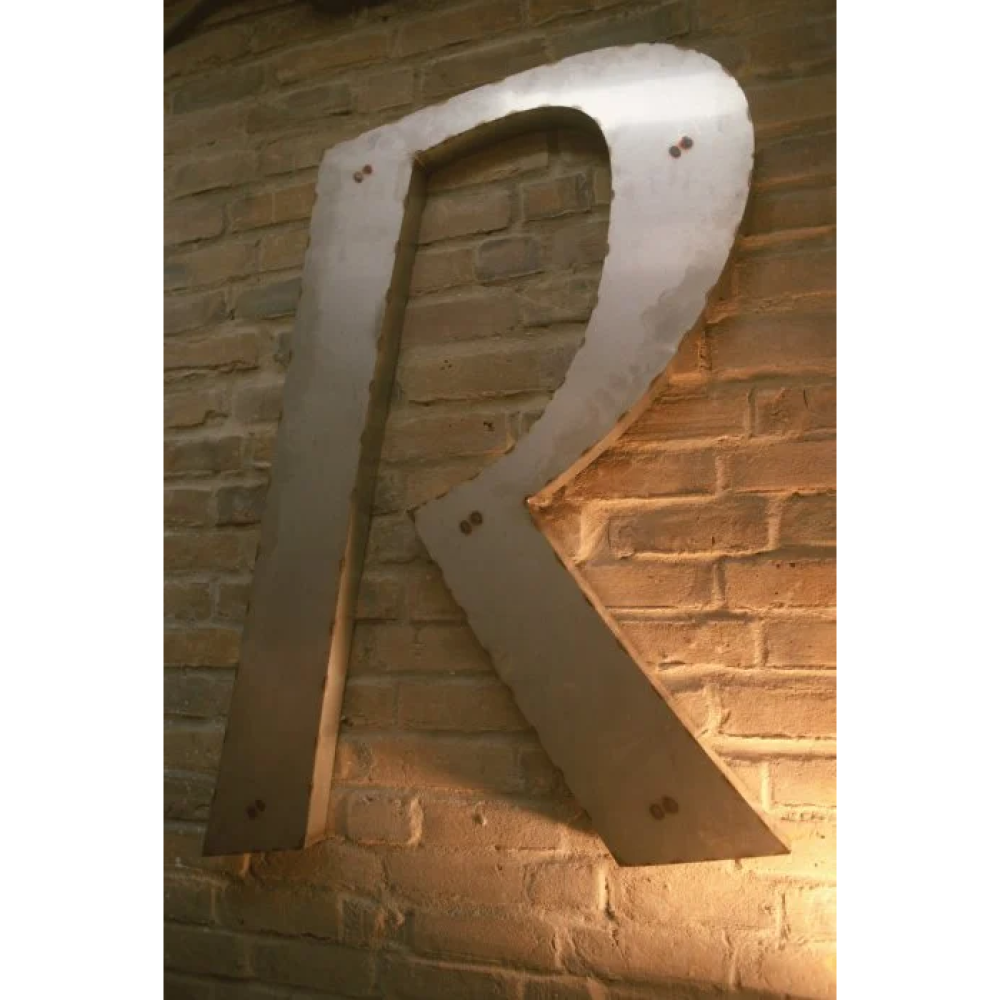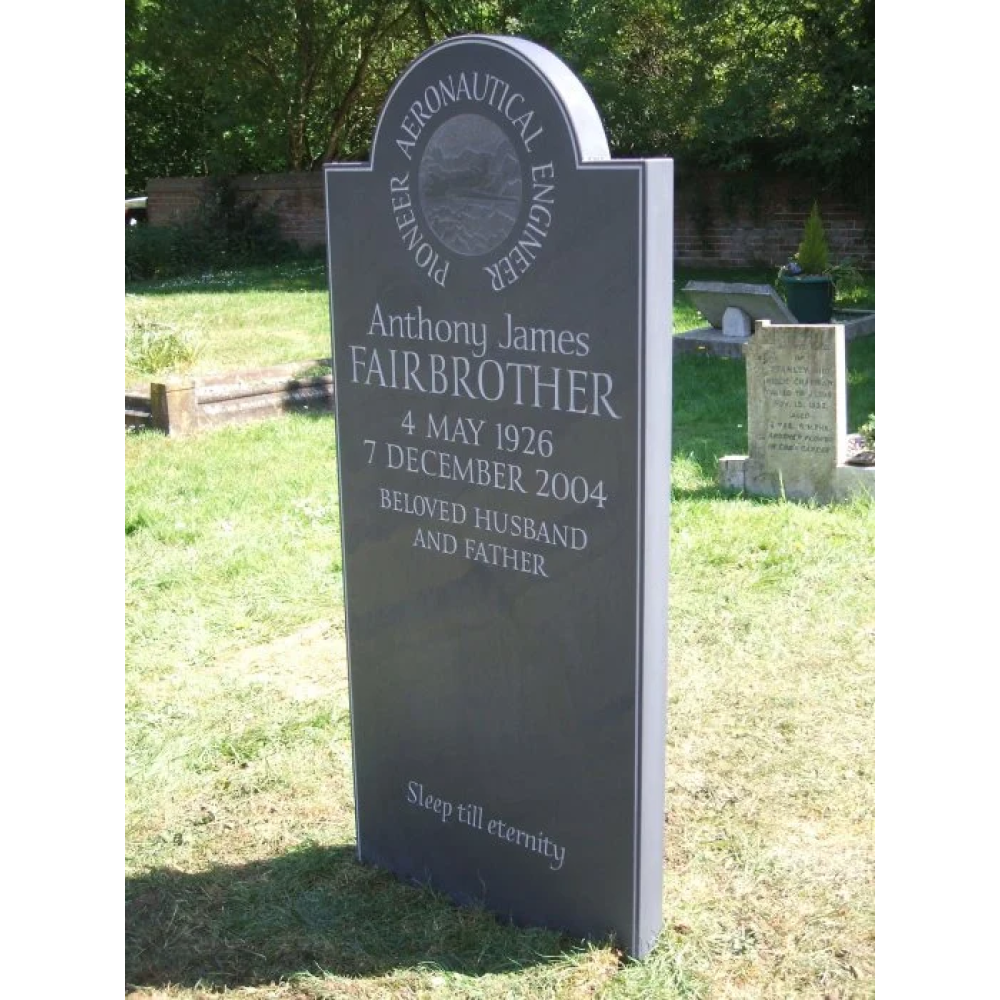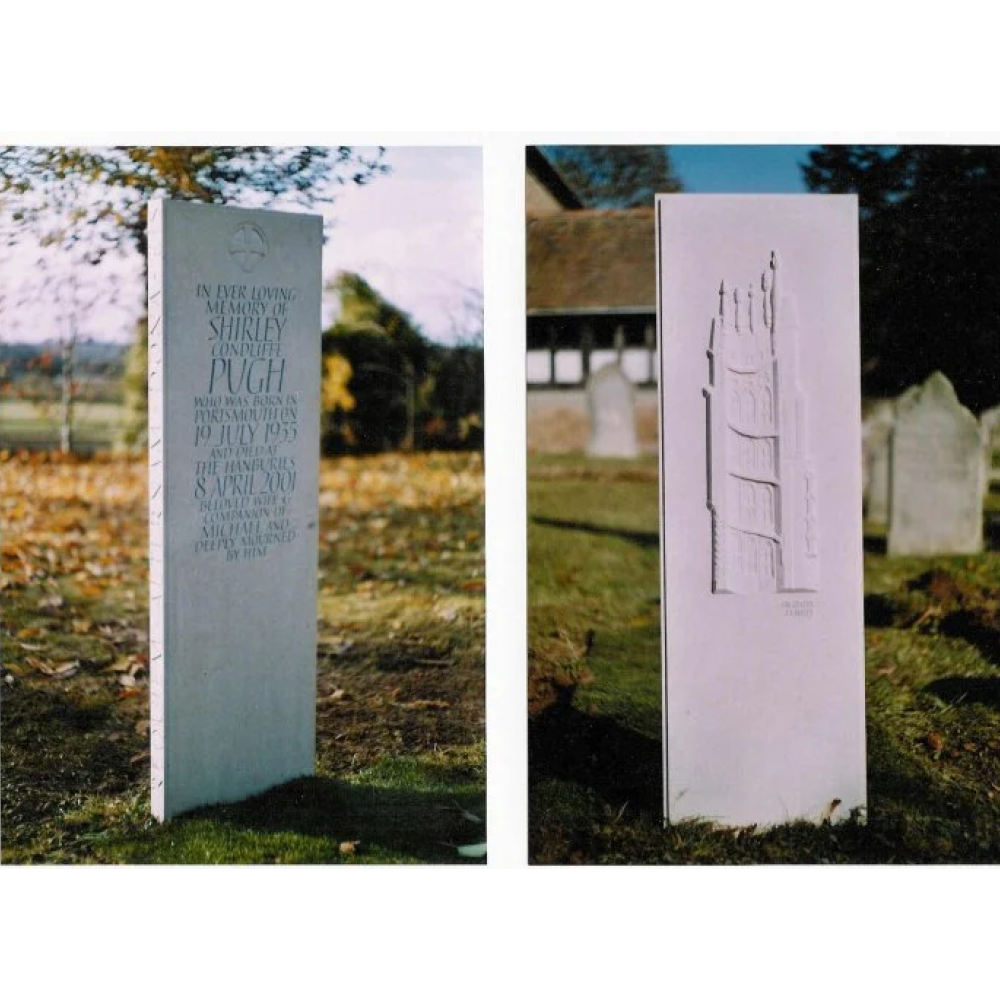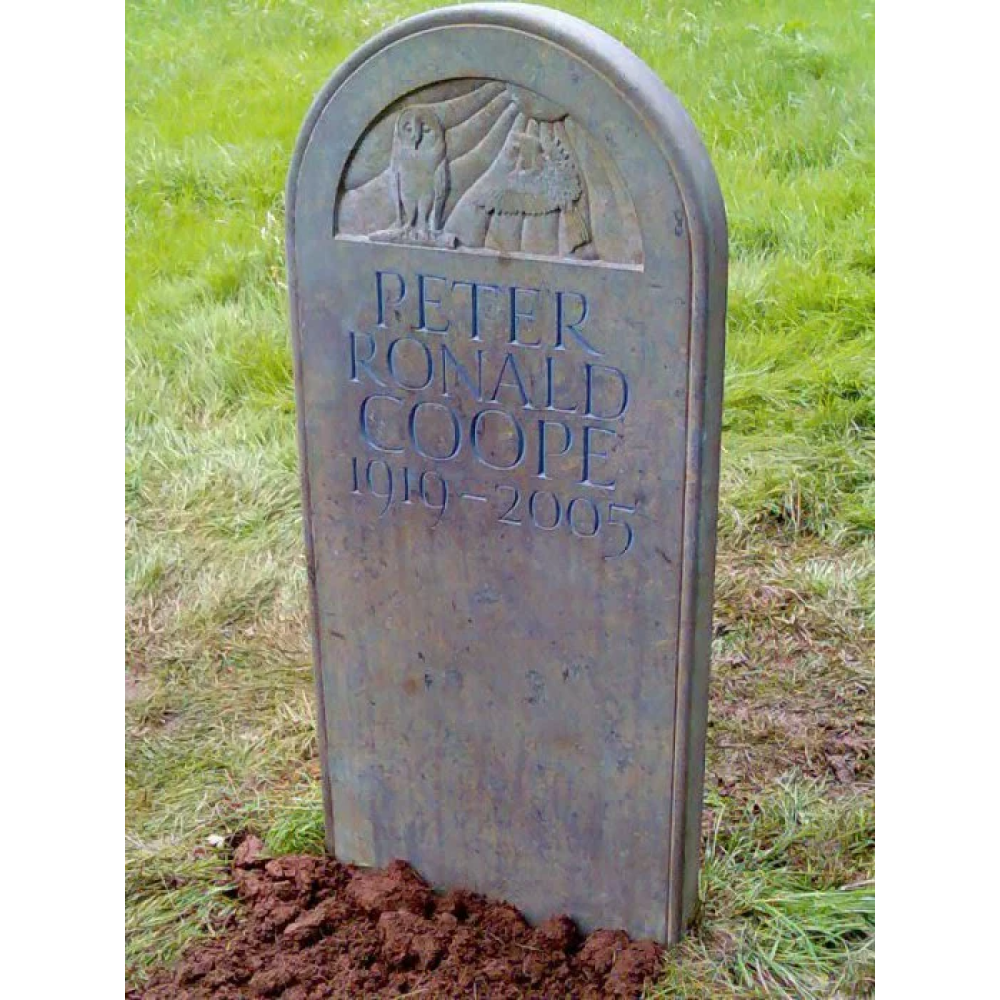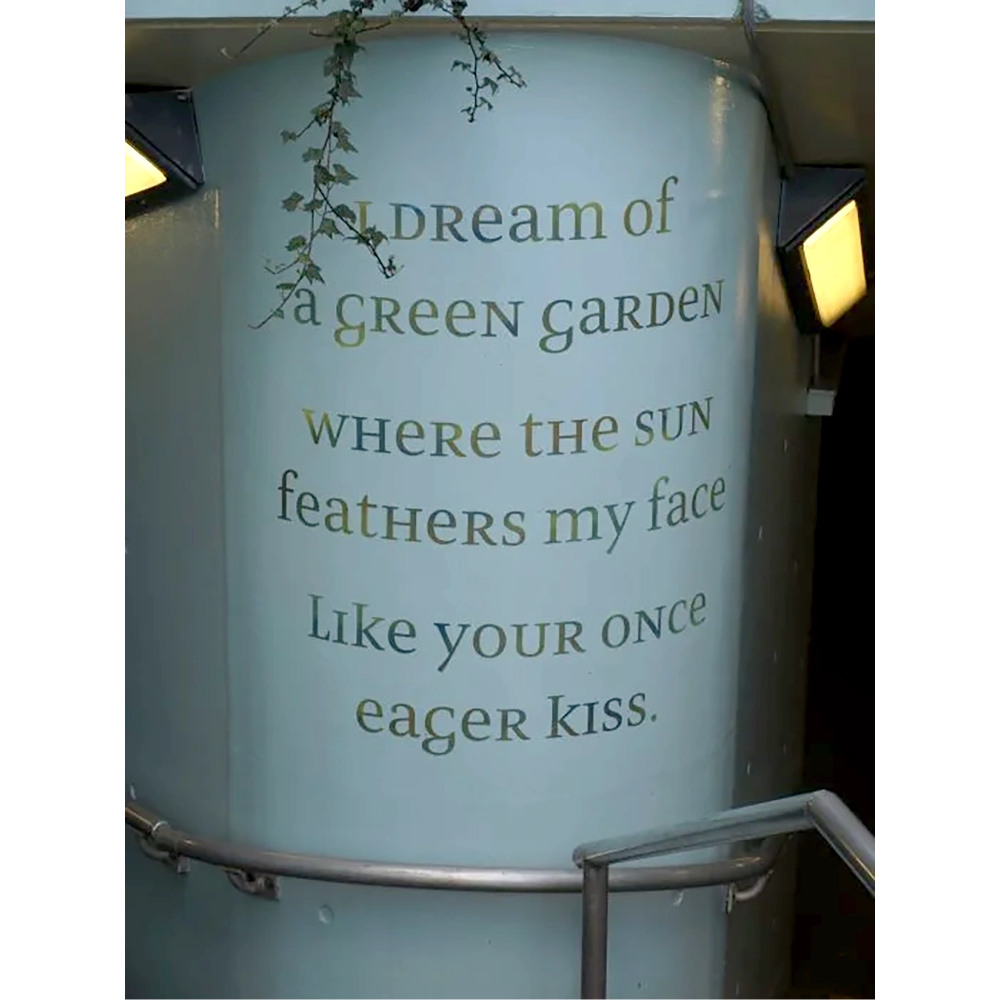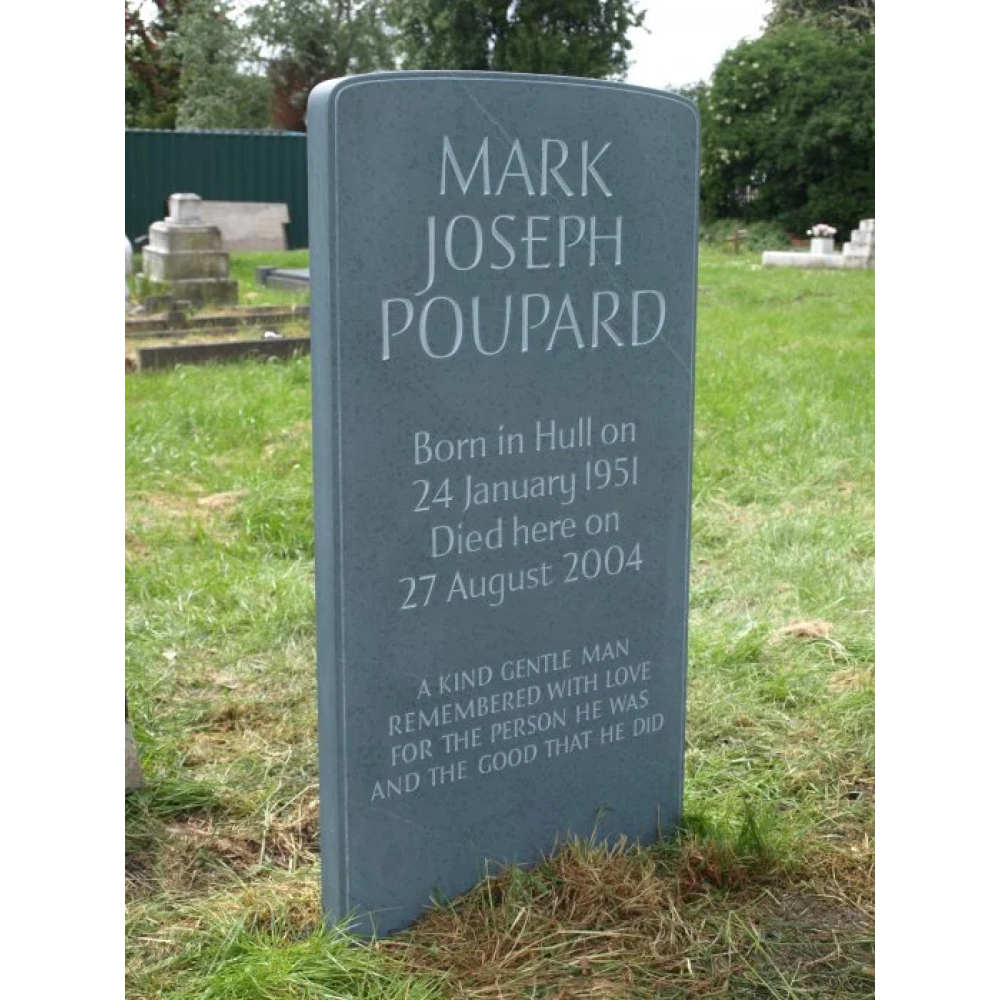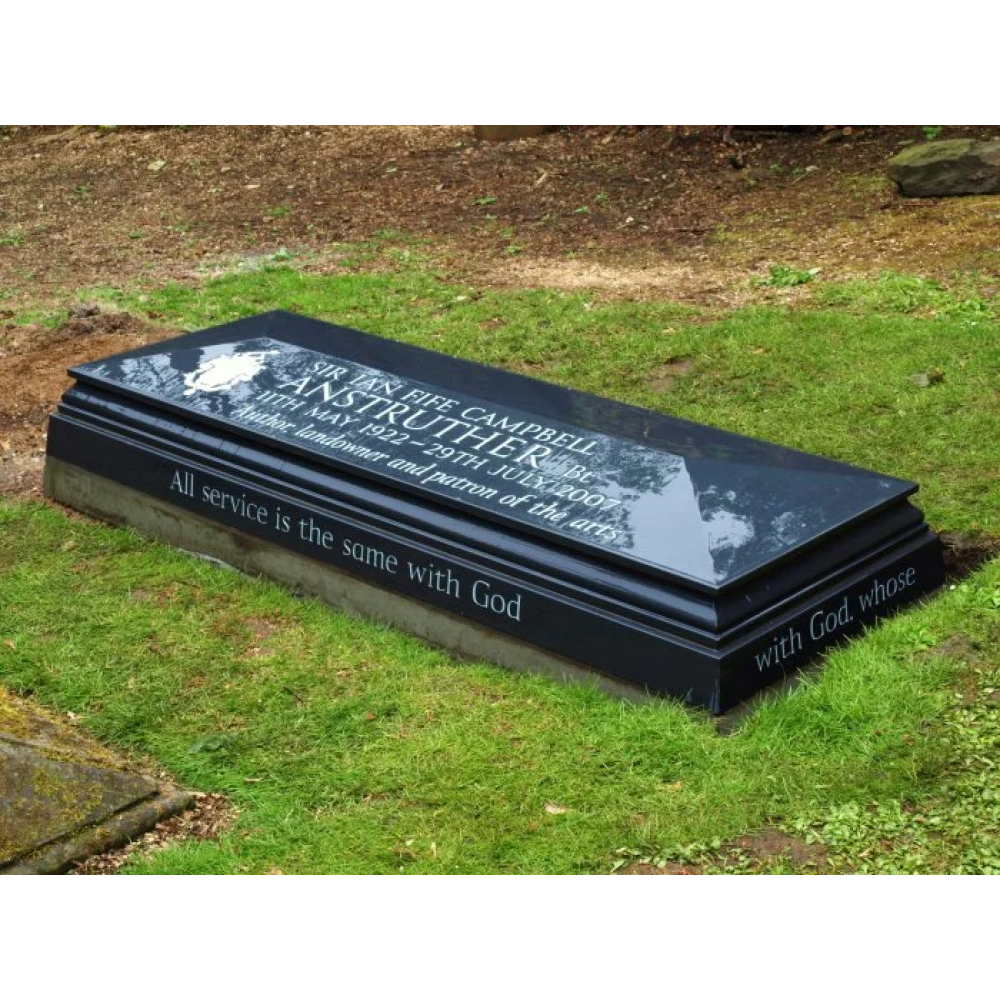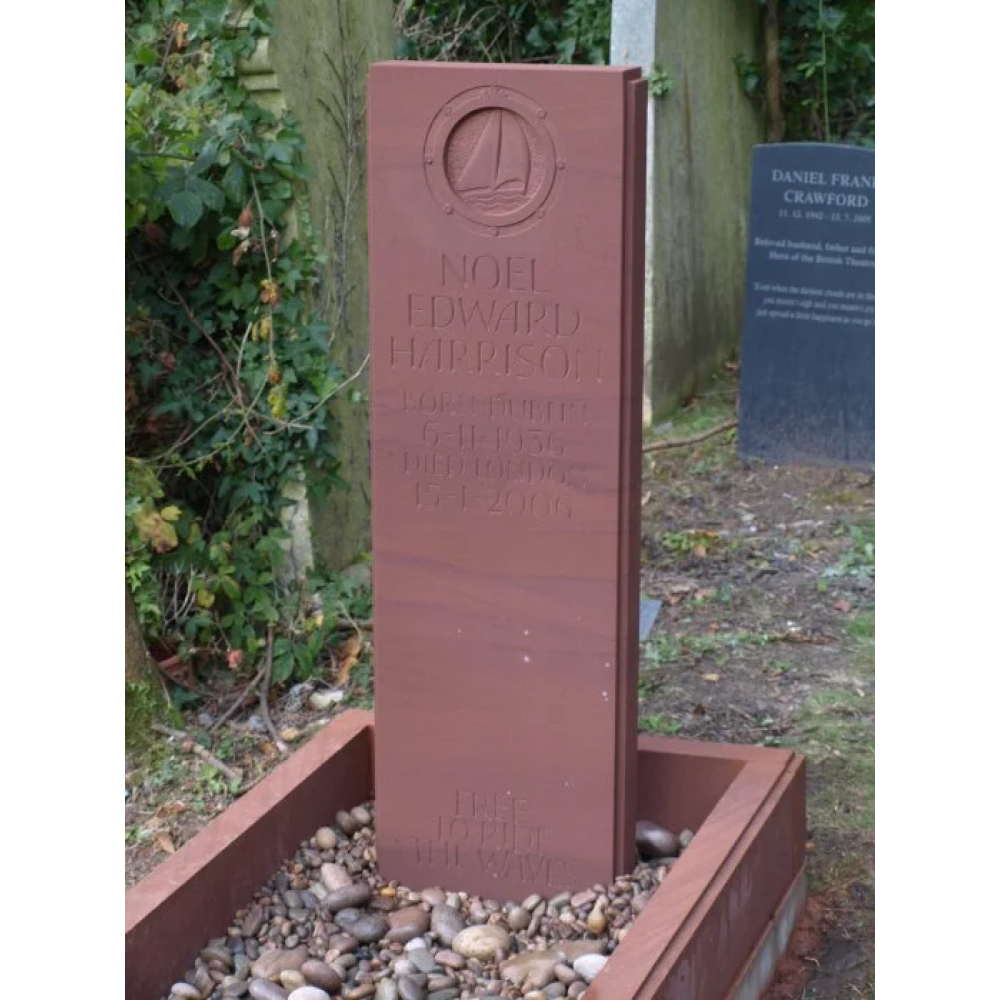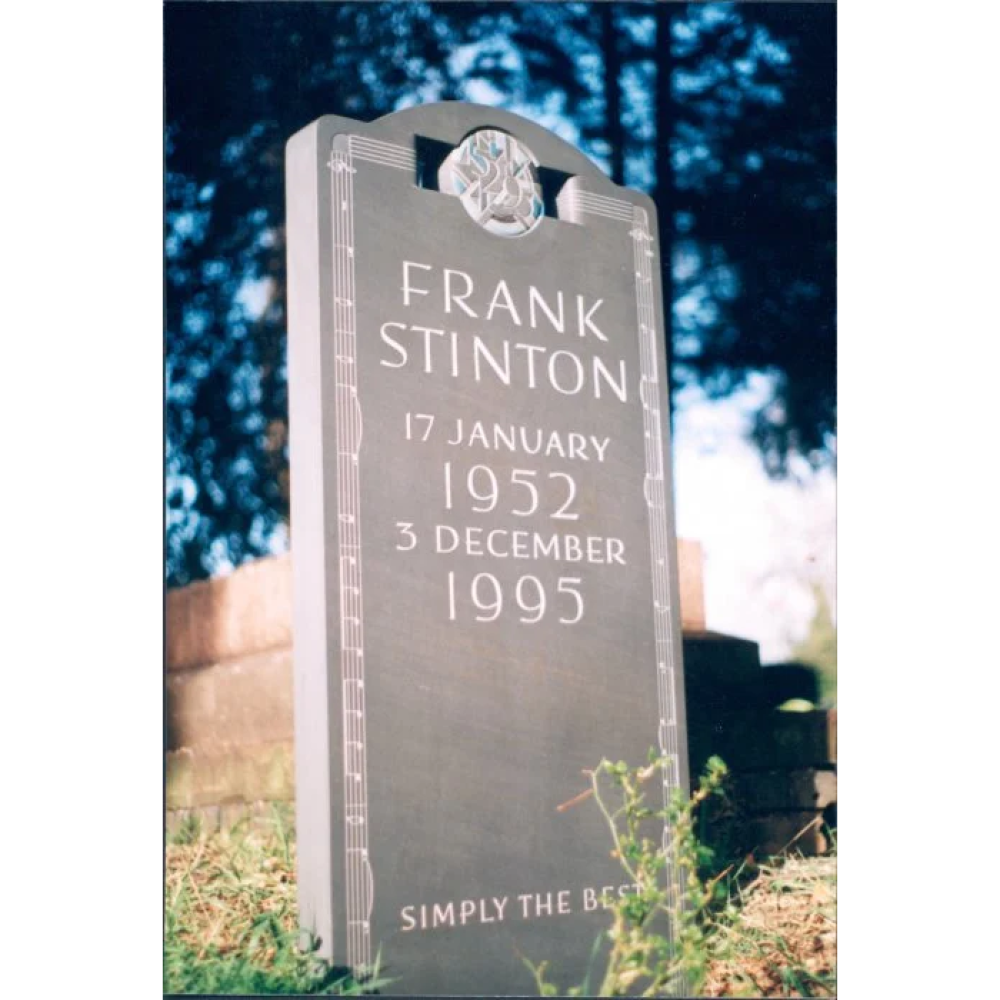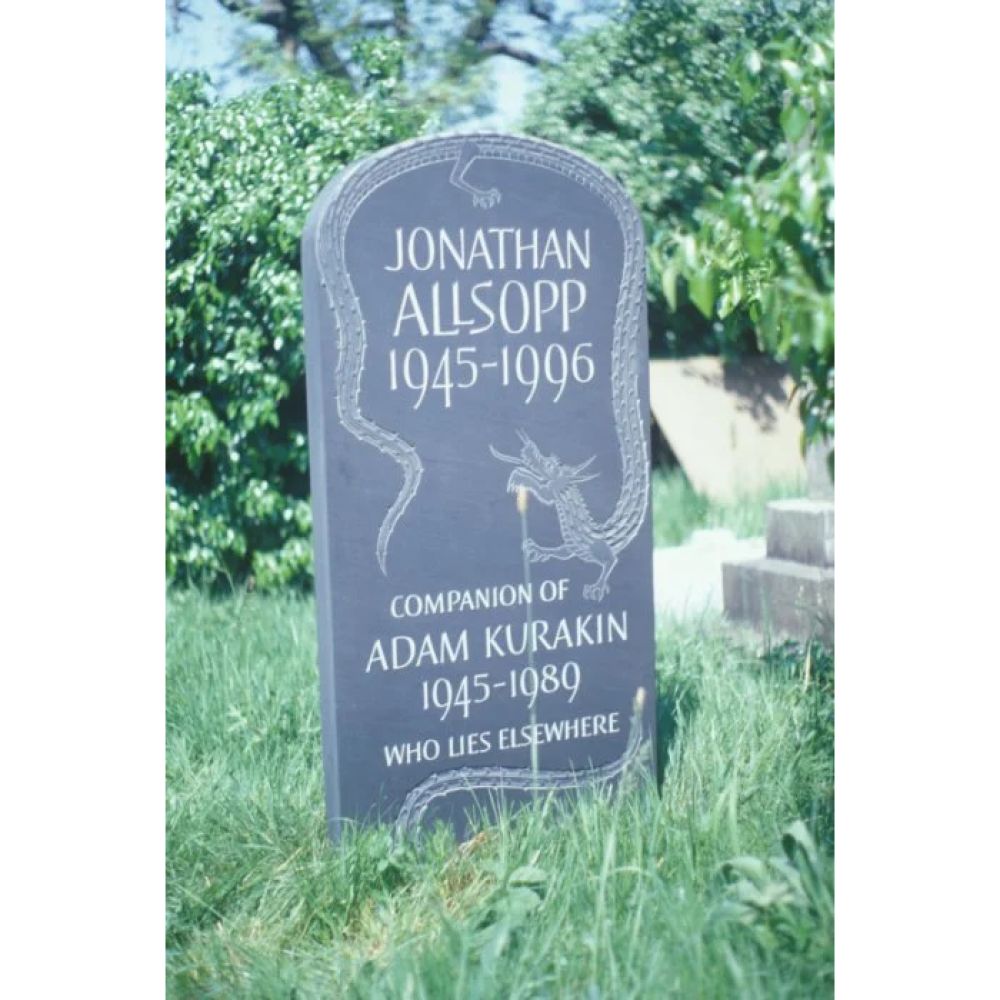
I am letter-carver living in Devon with a workshop just over the border in Somerset who carries out memorial, architectural and decorative lettering commissions throughout the UK. Each project is considered and developed in consultation with the client and all text is created on the drawing board and is unique to each commission.
I studied at The City & Guilds of London Art School in the 1980's and returned to teach on the Carving course for twenty years. I apprenticed to master lettering artists Richard Kindersley and Ralph Beyer and then set up my own studio in London until the move to the West Country in 2015. My current projects will take me to Sussex, Cornwall & Scotland.